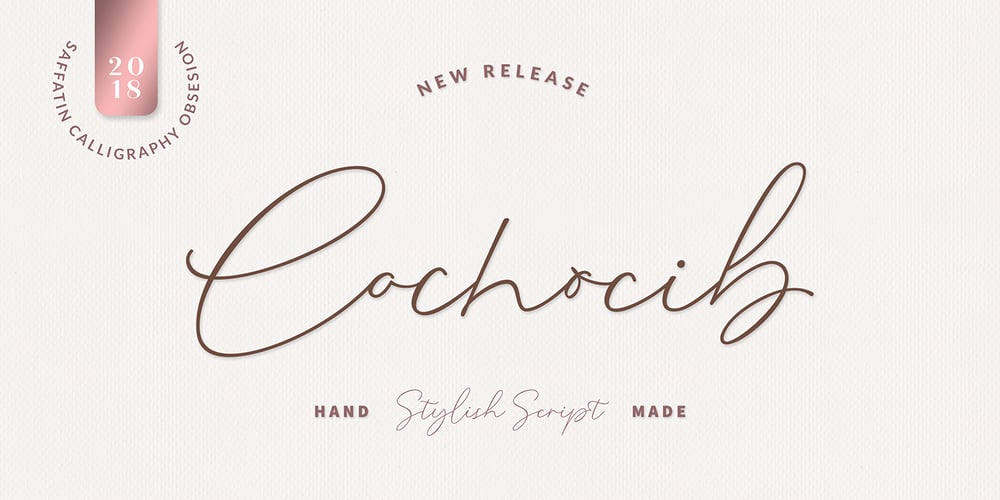
Cochocib Script Latin Pro
Cochocib Script Latin Pro font
Cochocib Script Latin Pro Font Family was designed by Sarwo Edy and published by Saffatin.co. Cochocib Script Latin Pro contains 1 styles and family package options. Introducing my Cochocib Script, with a soft style and has an elegant nuances, classy and natural. Perfect to get a more charismatic impression or unique touch to your projects and branding, greeting cards, wedding, banner, name card, lettering, fonts pairing, etc. Come with swash letter, ligatures, uppercase and lowercase alternates that you can combine every letter perfectly. Also easy to use with any program with opentype feature support. Including: – Cochocib Script Latin Pro OTF – Cochocib Script Latin Pro TTF This font support accent letters of Central Europa, Western (À Â Æ È Ë ã ä æ è…) Thank you!